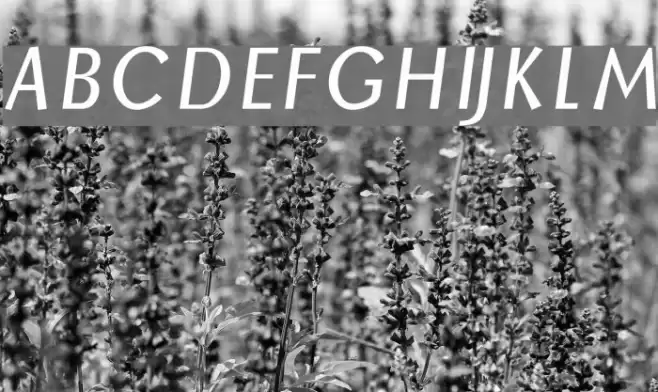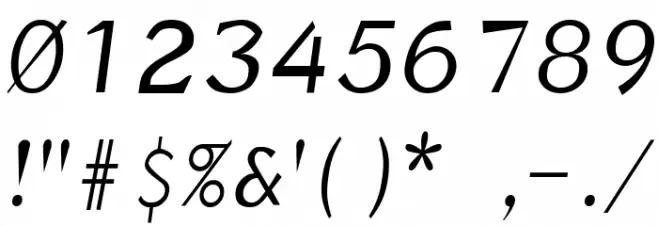
Borzoi BoldItalic Font
Borzoi BoldItalic Description
This font features a bold and italicized style, combining elegance with a strong presence. The uppercase letters are slightly slanted, giving a dynamic and sophisticated look. The lowercase letters maintain a consistent flow, enhancing readability while retaining a unique character. Numbers are clear and well-defined, making them suitable for various applications. Special characters are designed with attention to detail, ensuring they complement the overall aesthetic. The font's boldness is balanced with a medium contrast in stroke thickness, providing a harmonious visual appeal.
A bold and italicized font with a dynamic and elegant style from Script fonts.